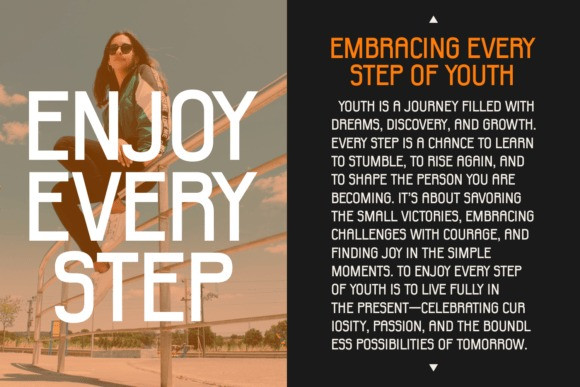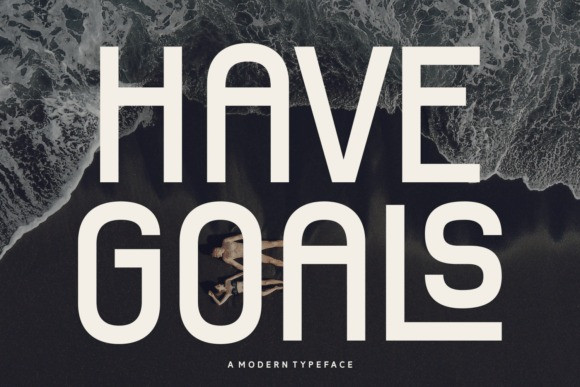
Have Goals Font
Have Goals Font is a bold and modern sans serif typeface designed for impact and clarity. With tall, geometric letterforms and a sleek minimal aesthetic, this font is perfect for posters, branding, advertising, social media, and motivational projects. Its clean structure ensures maximum readability while delivering a contemporary, confident look.